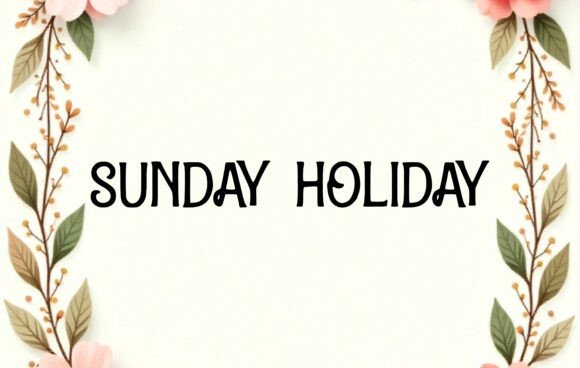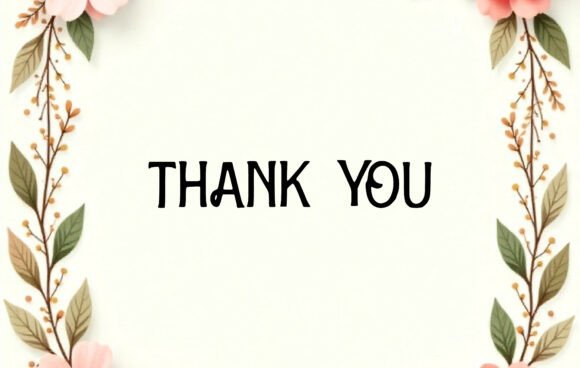
Introduction to Concertina Font
Concertina is a quirky and charming display font that strikes the perfect balance between playful and elegant.
With its soft curves, slightly irregular strokes, and whimsical personality, this typeface feels hand-crafted yet polished โ ideal for designs that need to be both friendly and refined Whether youโre working on branding, invitations, greeting cards, packaging, childrenโs books, or creative social media content, Concertina brings a unique rhythm and warmth to your typography.
Key Features of Concertina Font
Why Choose Concertina Font?